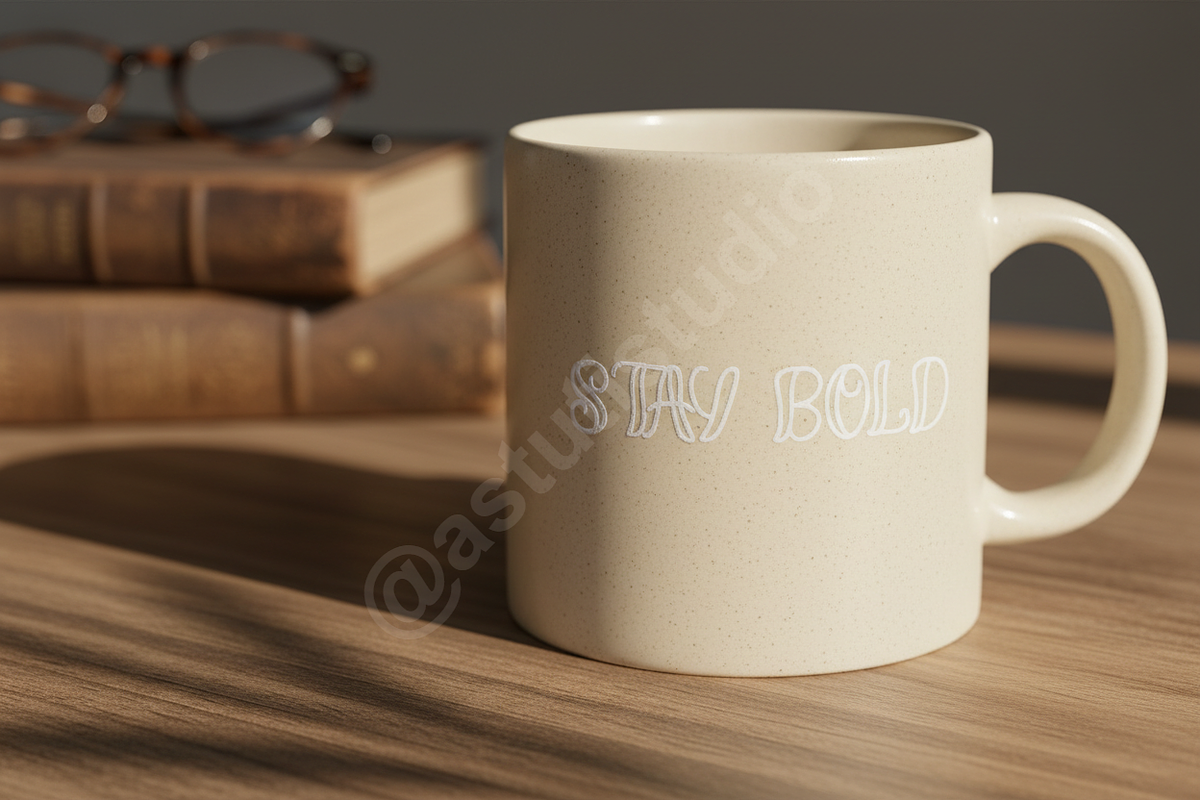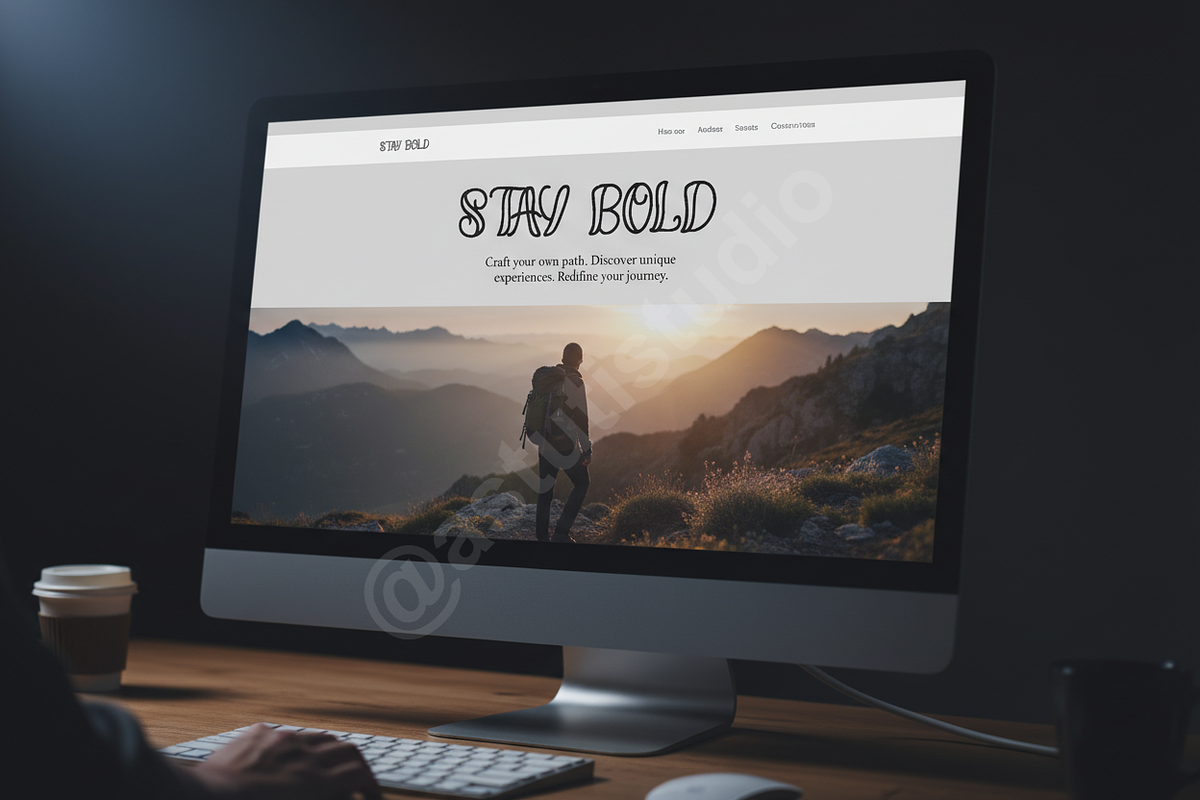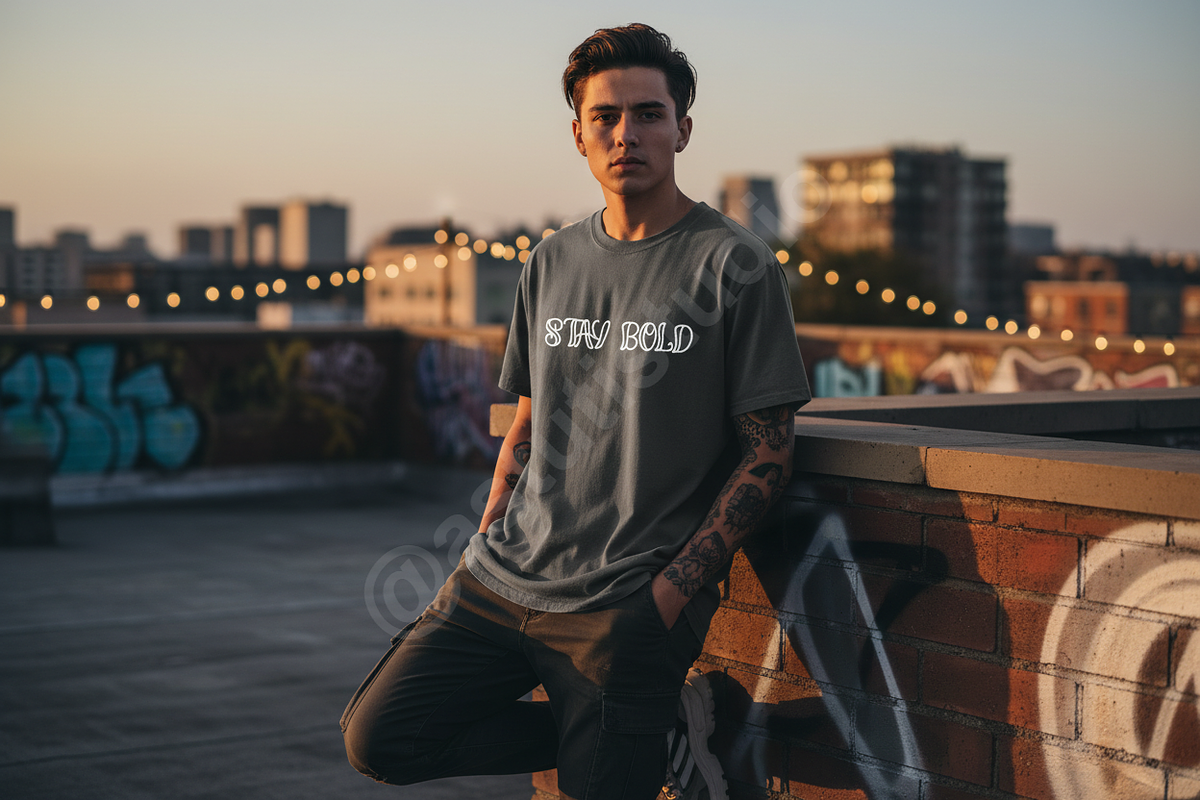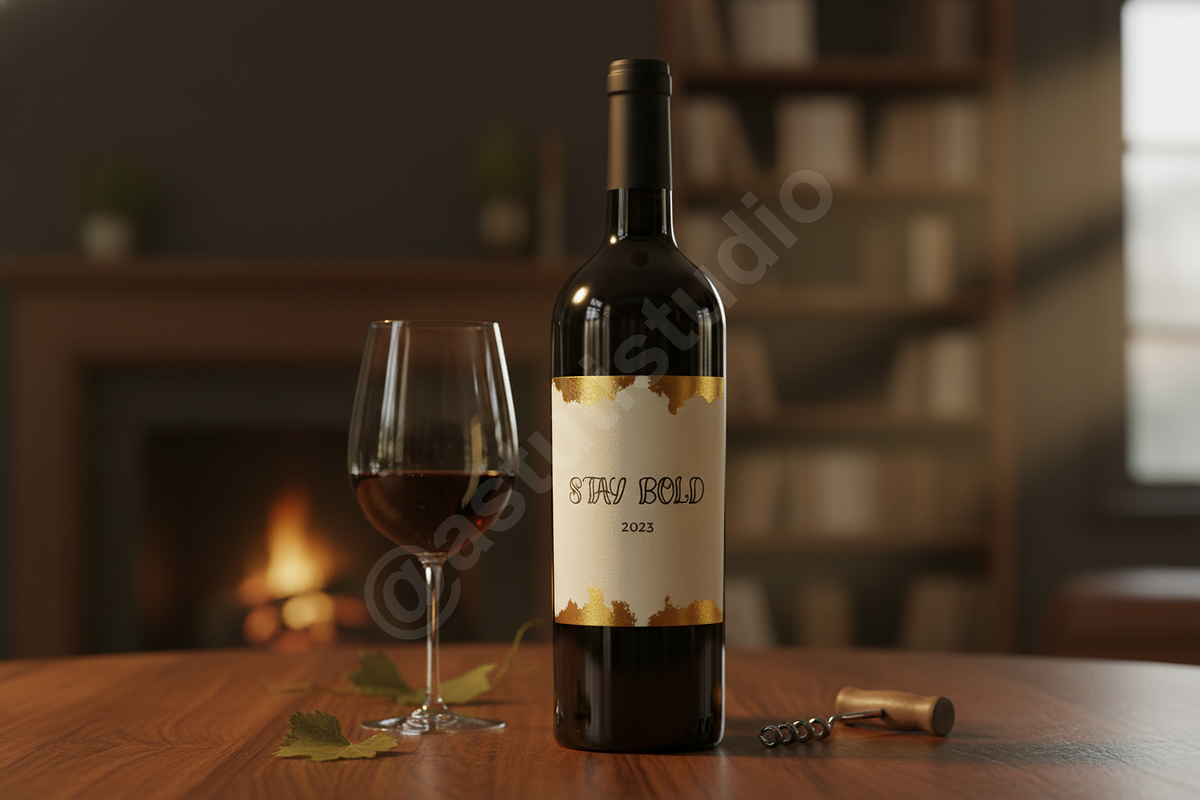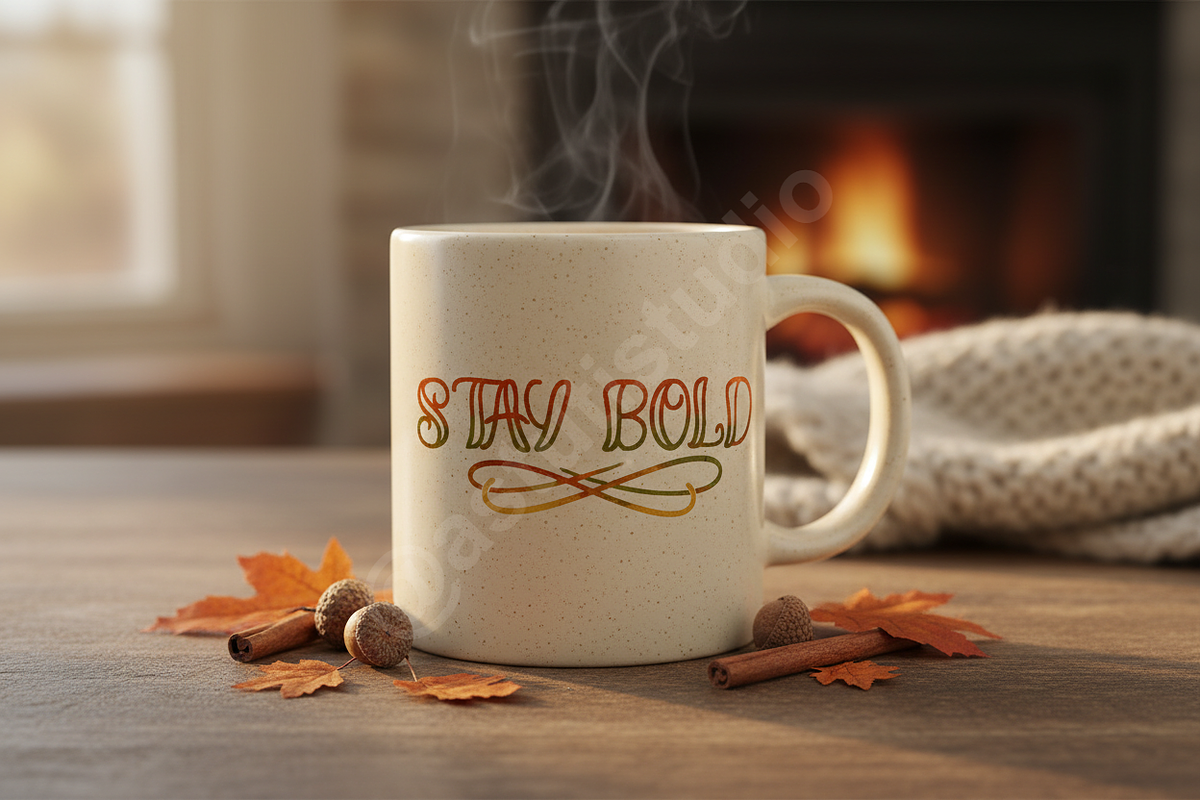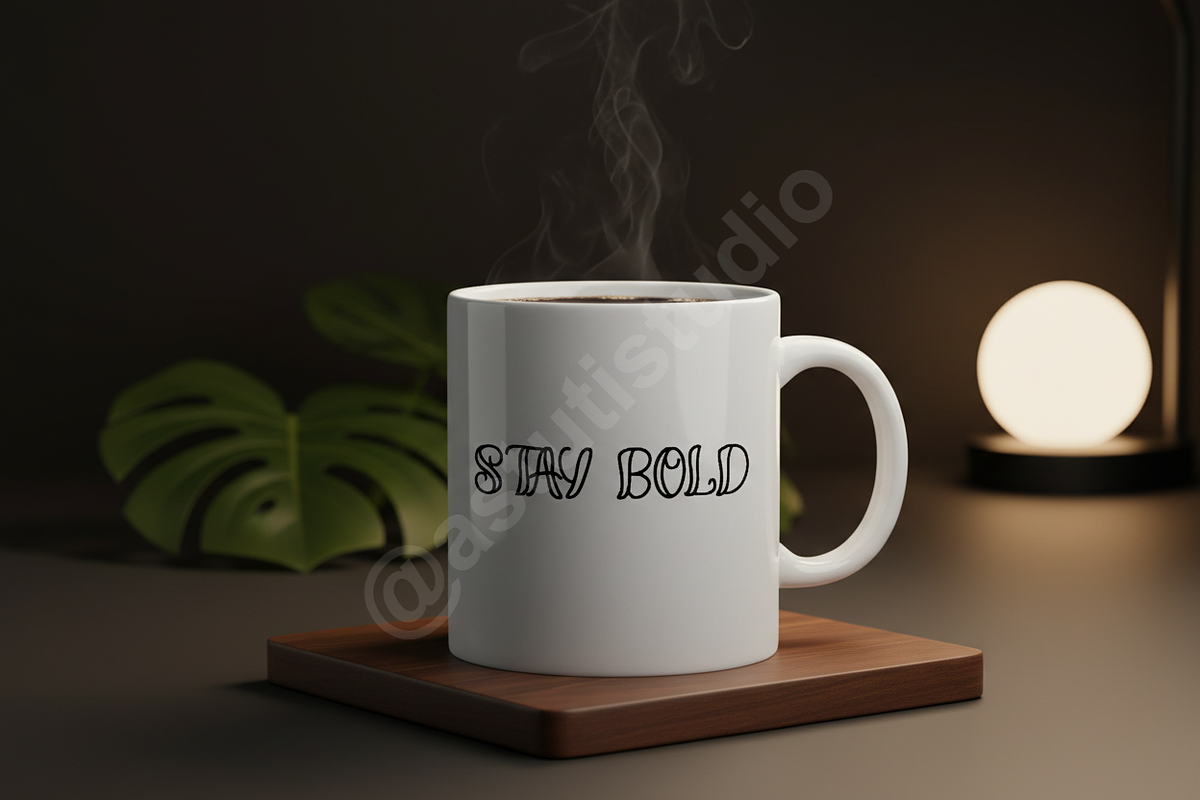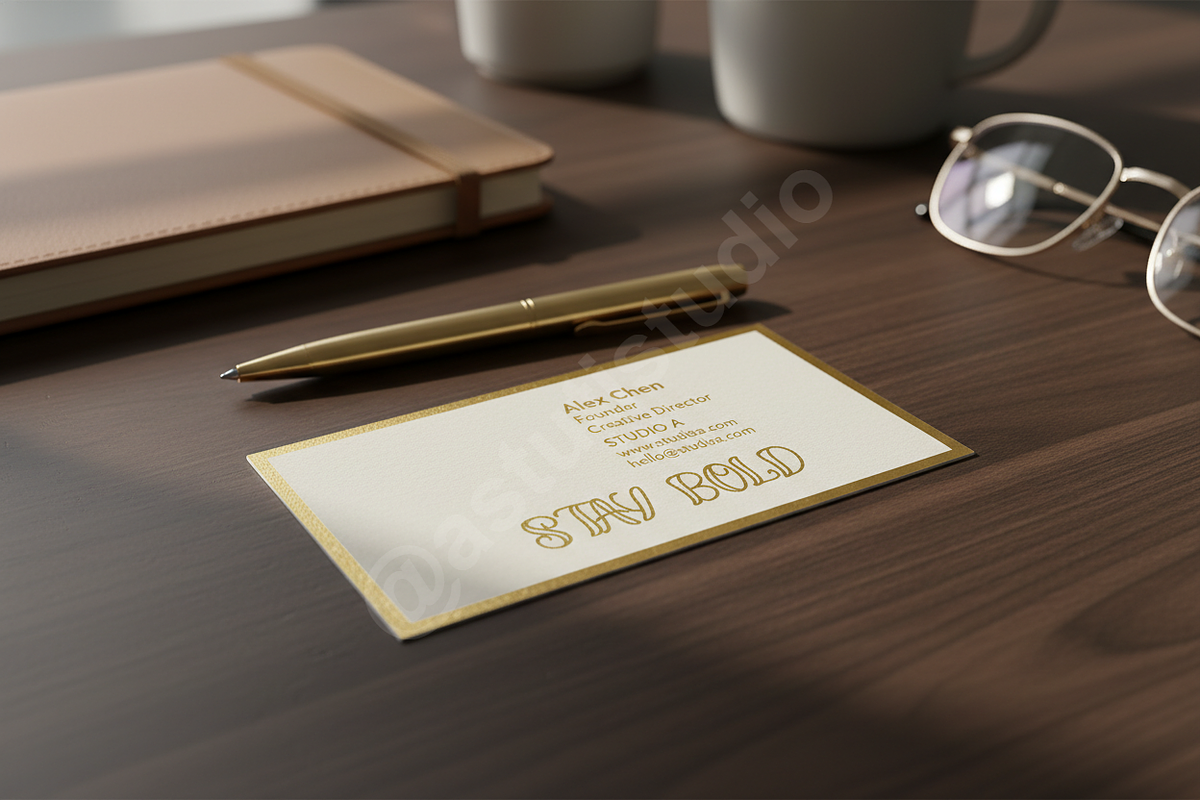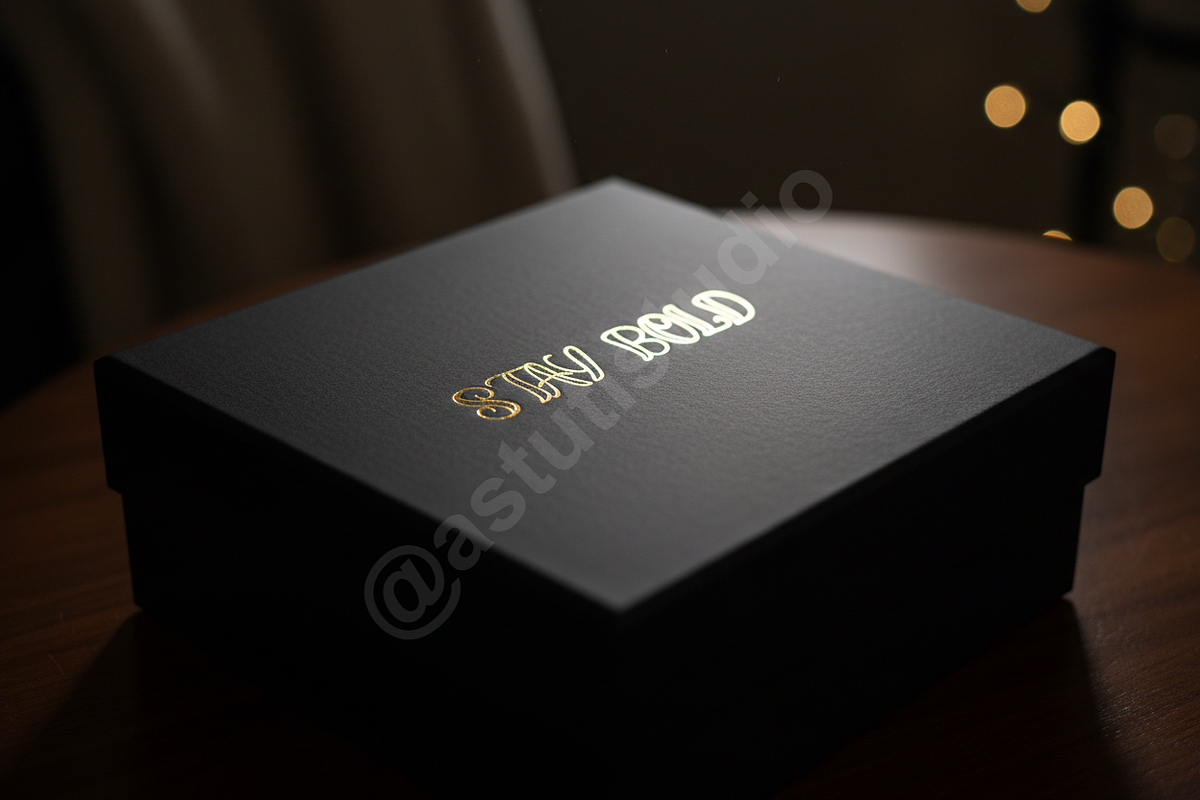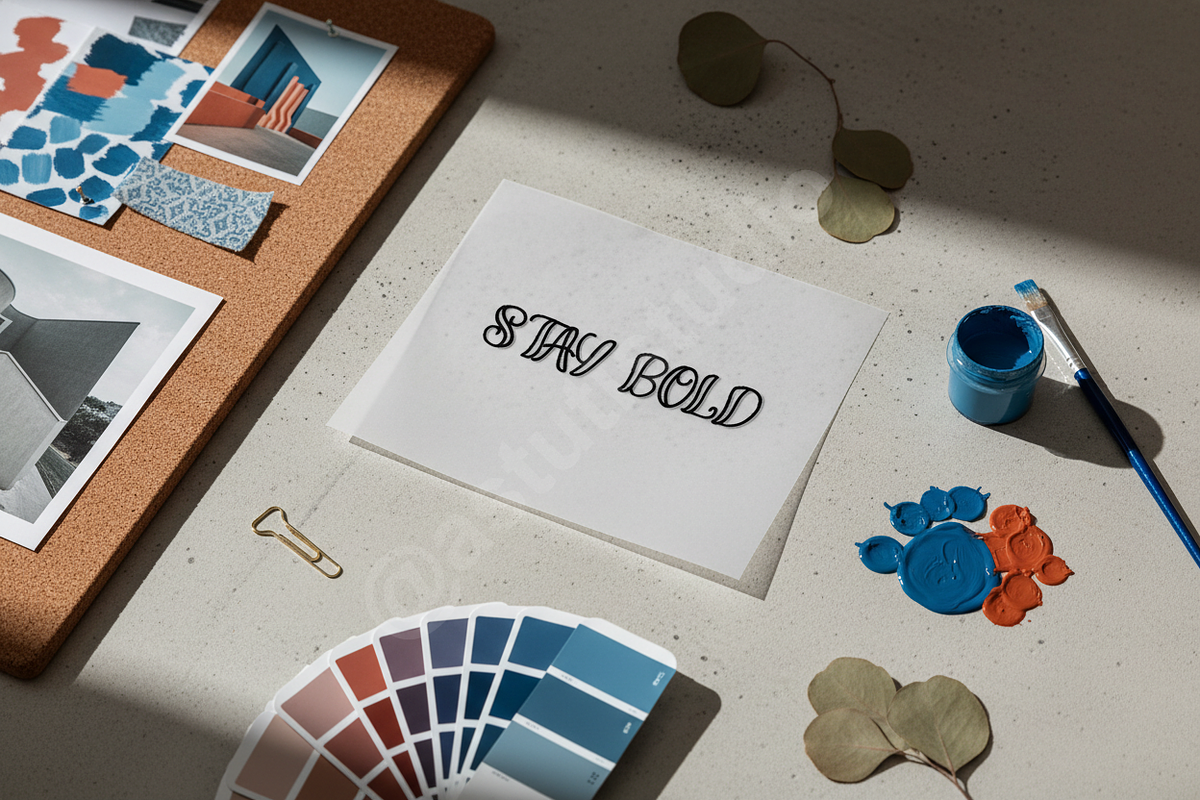
Jiruda | Modern Elegant Serif Typefa
Introduction Jiruda is a premium serif typeface designed for high-end aesthetics. Its sophisticated contrast and clean letterforms make it an essential tool for designers seeking to convey luxury and timeless elegance. Perfectly suited for high-fashion editorial, minimalist branding, and premium social media content, Jiruda elevates every project it touches.
- High-contrast serif design for a luxurious feel
- Carefully balanced kerning and spacing for professional readability
- Clean, sharp edges optimized for high-resolution displays
- Extensive multilingual support for global brand reach
- Beautifully crafted ligatures and alternate characters
- Comprehensive character set including Uppercase, Lowercase, and Numbers
- Full Punctuation and Symbol support